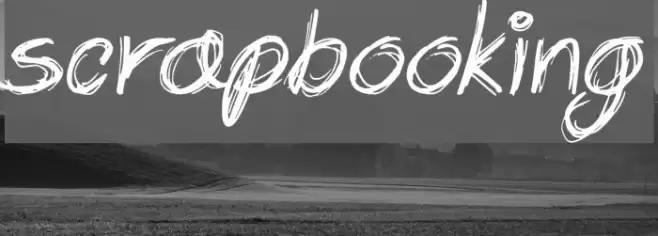
Scrapbooking Font
Scrapbooking Description
This font features a playful and artistic style, characterized by its hand-drawn appearance with a sketch-like texture. The letters are slightly irregular, giving it a casual and informal feel. The strokes are bold and dynamic, with varying thickness that adds to its lively and energetic look. This font is perfect for creative projects that require a personal touch, such as scrapbooking, greeting cards, or DIY crafts. Its unique style makes it stand out, capturing attention with its whimsical charm.
A playful, hand-drawn font with a sketch-like texture and dynamic strokes from Uncategorized fonts.
- Proposed Projects: Ideal for scrapbooking, greeting cards, DIY crafts, and creative projects.